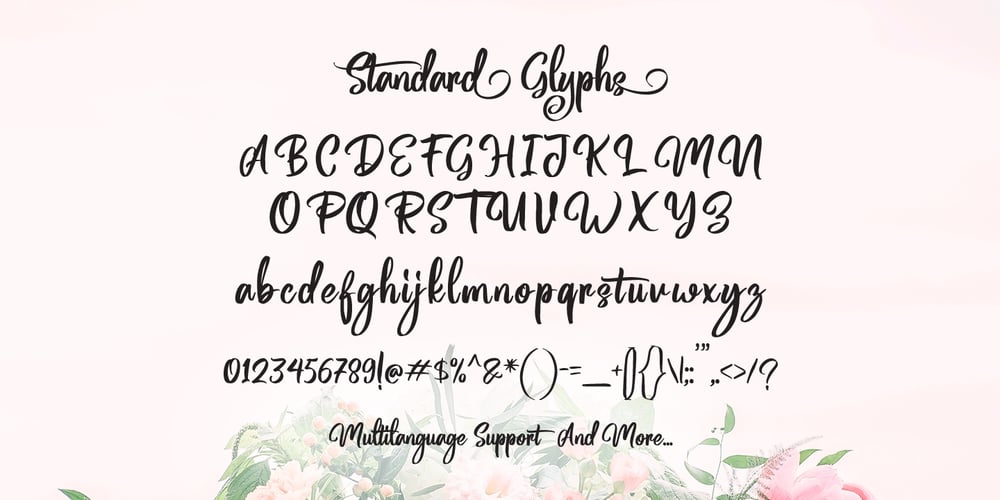
Magentasia Font Family was designed by Ferry Hadriyan and published by FHFont. Magentasia contains 2 styles and family package options. Magentasia is Brush Script Font with Handlettering Brush Style, with opentype feature include of the font. Suitable for design, element design, wedding, event, t-shirt, logo, badges, sticker, and awesome work, etc…